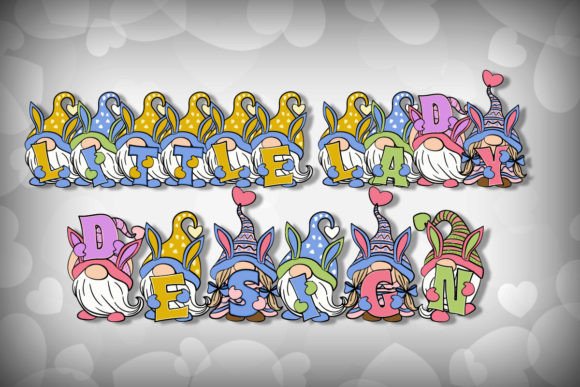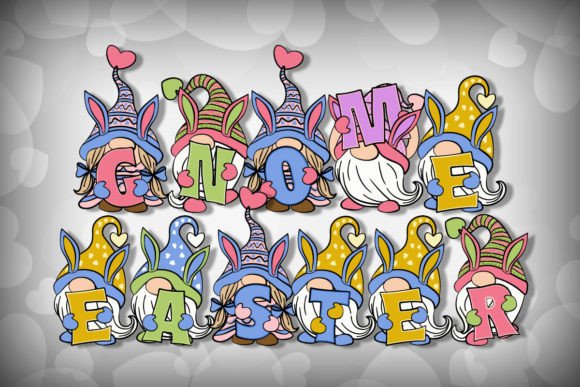
Gnome Easter Font: A Vibrant and Versatile Addition to Your Design Library
Are you on the hunt for a font that can add a pop of color and personality to your designs? Look no further than the Gnome Easter Font! This fantastic color font is not only eye-catching but also highly detailed, making it an excellent resource for any designer or crafter looking to elevate their work.
What Makes Gnome Easter Font So Special?
The Gnome Easter Font is a game-changer for several reasons. Firstly, its unique and playful design makes it perfect for a wide range of themes and projects. Whether you’re working on a spring-inspired design, a whimsical illustration, or a modern advertisement, this font will add a touch of personality and flair. Additionally, its high level of detail ensures that your designs will look crisp and professional, even at large sizes.
Endless Design Possibilities with Gnome Easter Font
One of the best things about the Gnome Easter Font is its versatility. This font can be used for a vast array of design projects, including:
- Wall displays and posters
- Social media post logos and graphics
- Advertisements and marketing materials
- Product packaging and designs
- Labels and branding materials
- Photography and watermark designs
- Invitations and event materials
- Stationery and paper crafts
Regardless of the project, the Gnome Easter Font is sure to make it stand out. Its unique design and vibrant colors will capture the attention of your audience and leave a lasting impression.
Why Designers and Crafters Love Gnome Easter Font
So, why do designers and crafters love the Gnome Easter Font? For starters, it’s an excellent way to add some personality and whimsy to your designs. The font’s playful design and bright colors make it perfect for projects that require a bit of fun and flair. Additionally, its high level of detail ensures that your designs will look professional and polished.
Tips for Getting the Most Out of Gnome Easter Font
To get the most out of the Gnome Easter Font, here are a few tips to keep in mind:
- Experiment with different colors and combinations to find the perfect look for your design
- Use the font in conjunction with other design elements, such as graphics and images, to create a cohesive look
- Don’t be afraid to get creative and try out new and unusual design ideas
- Use the font to add a pop of color and personality to your designs, but be sure to balance it with neutral elements to avoid overwhelming the viewer